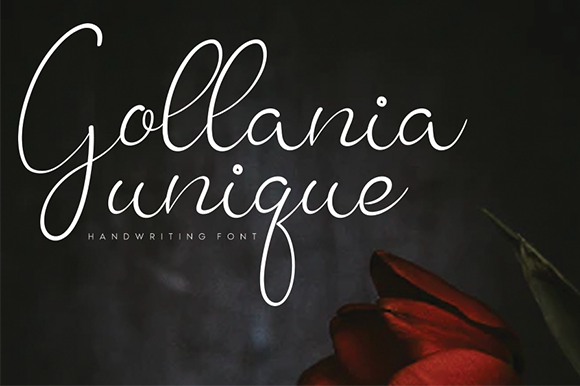
Welcome to the world of Gollania Font, a script font that's as warm and comforting as a cozy blanket on a rainy day. Experience the allure of this enchanting font, meticulously crafted to elevate your designs with its elegant curves and playful charm.
Gollania is not just a font; it's an artistic expression that captures the essence of handwritten notes, where every letter dances gracefully across the screen. Its flowing and relaxed style whispers tales of timeless elegance, making it the perfect choice for those seeking a touch of authenticity and heartfelt connection in their digital creations.
With Gollania, you'll effortlessly create Instagram posts that radiate warmth and captivate your audience. Its rounded letters and gentle strokes evoke a sense of nostalgia and intimacy, making your words resonate with your followers. Share captivating quotes, heartfelt messages, or simply let your photos speak louder with Gollania's charming presence.
Whether you're a blogger crafting heartfelt stories, a designer seeking a dash of whimsy, or a business owner yearning for a unique identity, Gollania is your perfect companion. Its versatility extends beyond Instagram; grace your wedding invitations with a touch of romance, add a splash of playfulness to birthday cards, or craft greeting cards that carry the warmth of your sentiments.
Gollania is more than just a font; it's a gateway to a world of creative possibilities. Its gentle curves and free-flowing style will transform your digital creations into heartfelt expressions, leaving an indelible mark on the hearts of those who behold them. Embrace the magic of Gollania and let your designs bloom with beauty and authenticity.